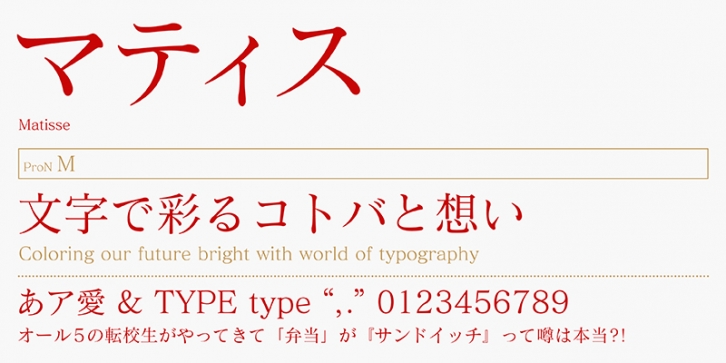
FOT-Matisse ProN is a Mincho-style typeface designed from basic principles of type design, but with a sharpness and elegance produced by its smooth and soft curves. Any texts set in this typeface will have maximum readability. This family has six weights with a remarkably thin weight “L†compared with similar fonts from other type foundries.